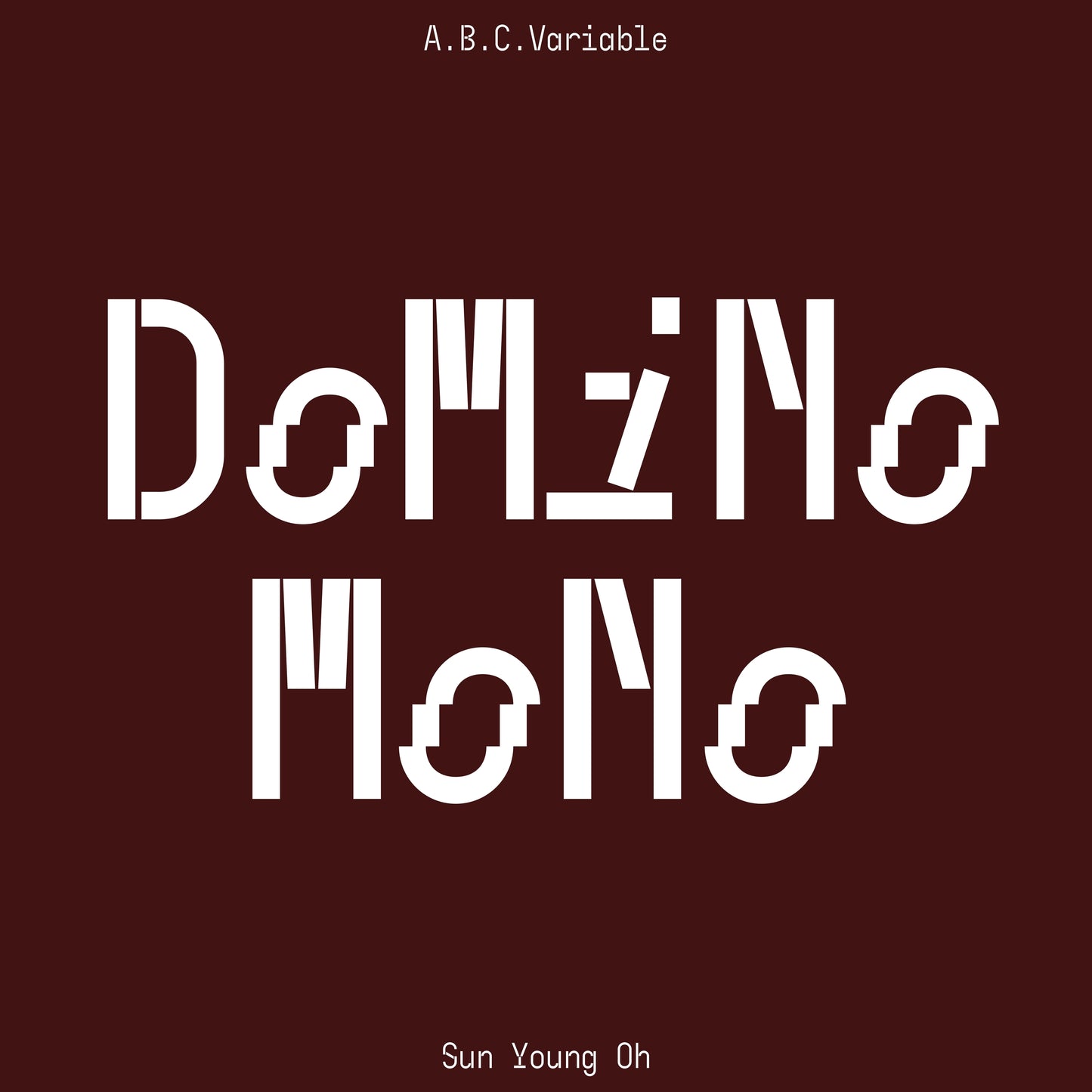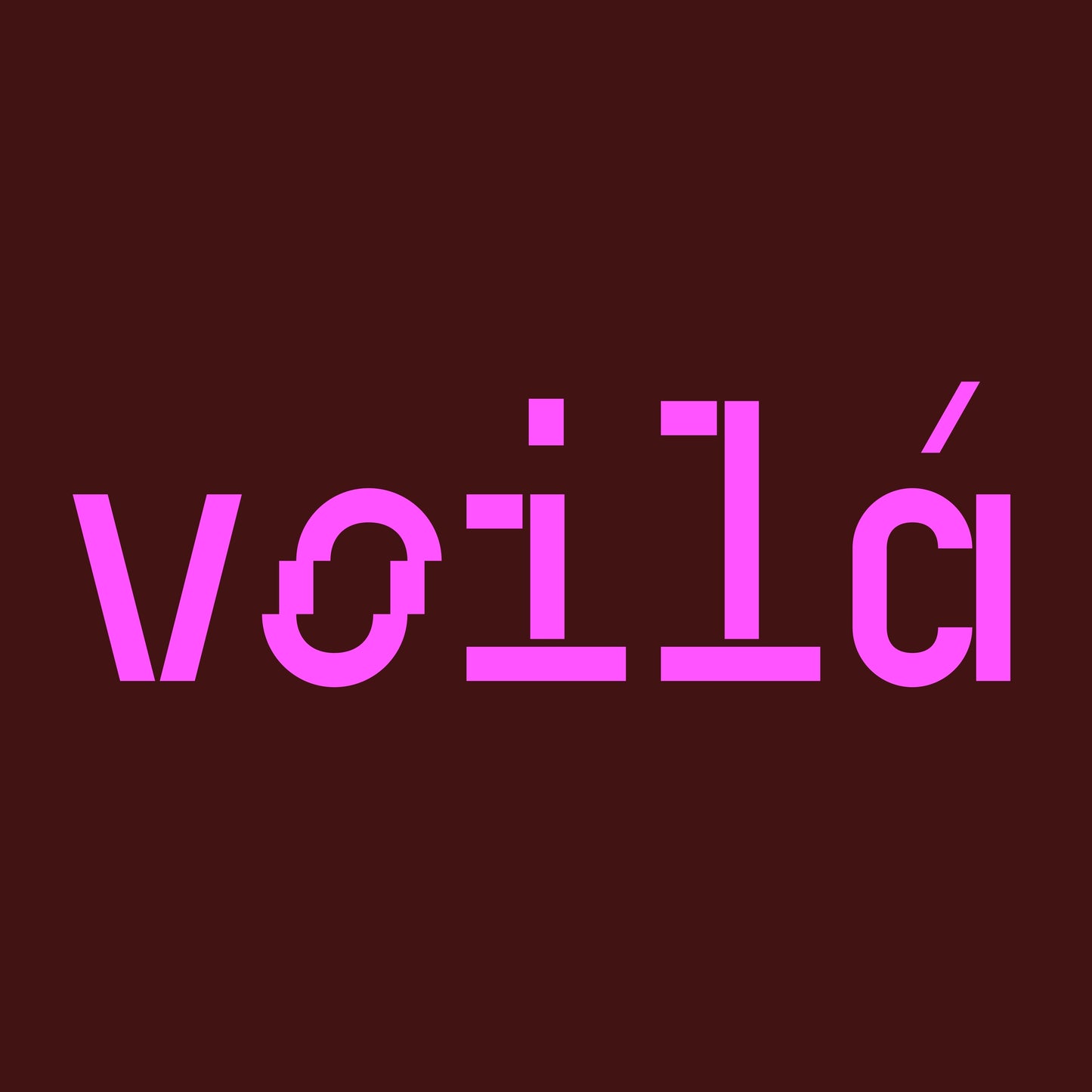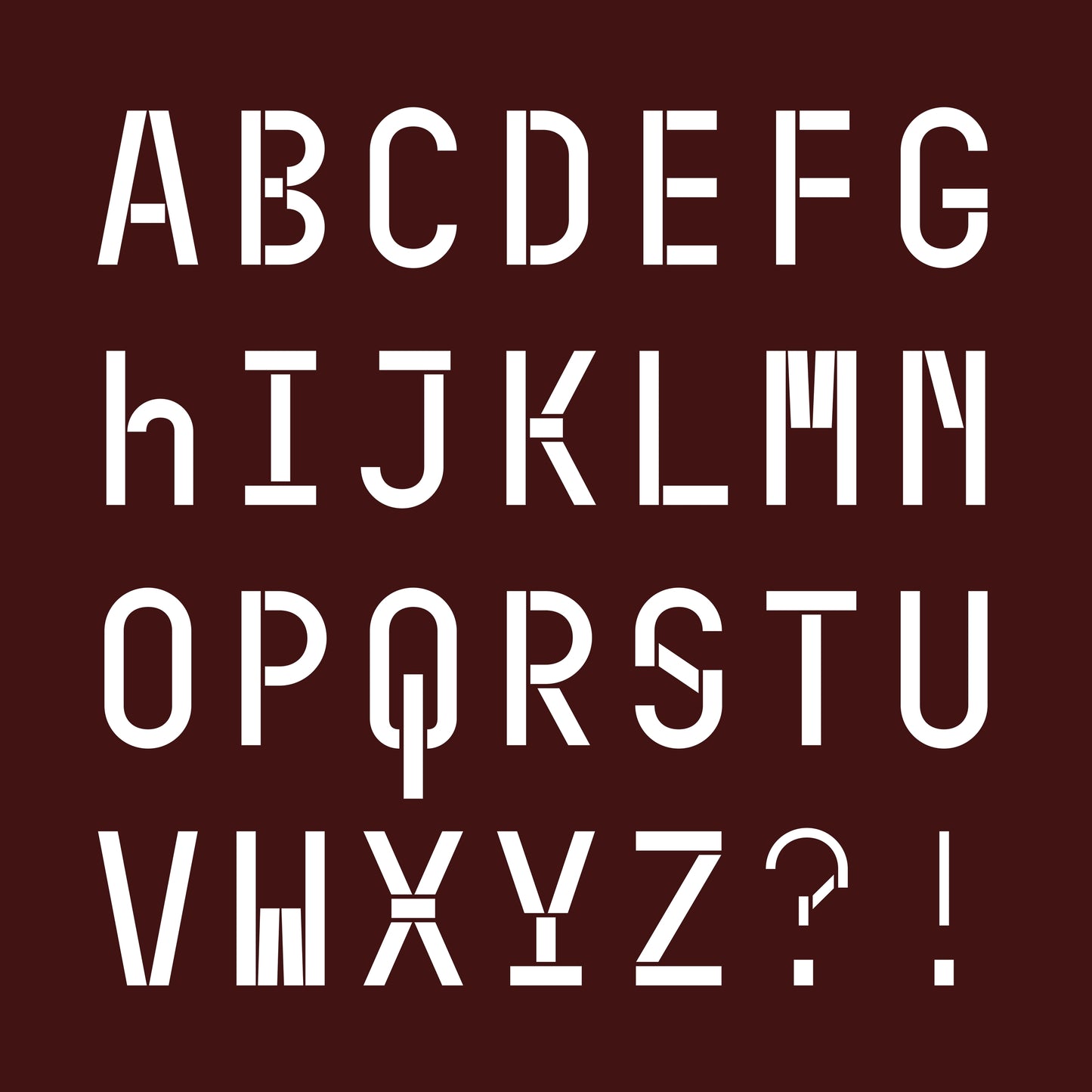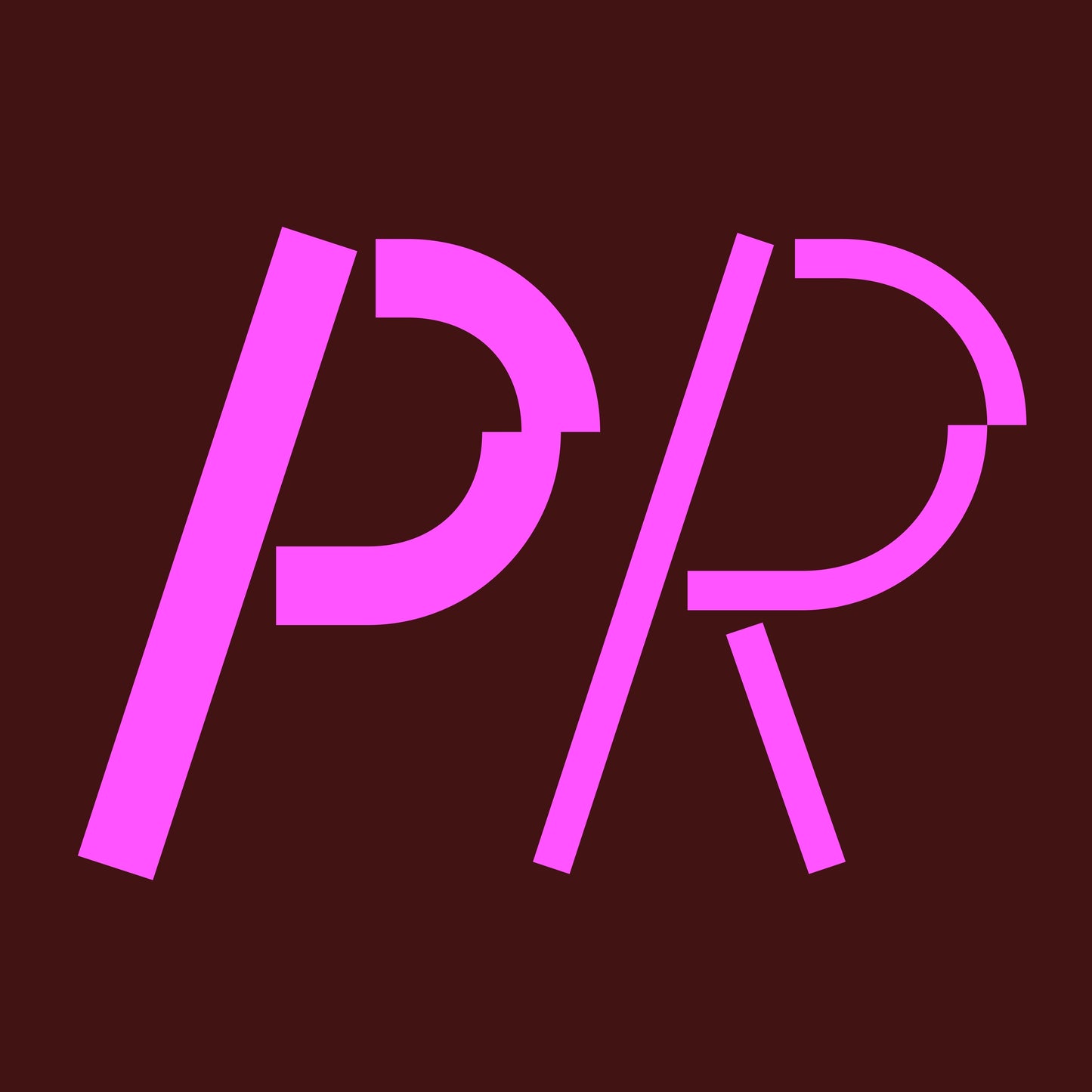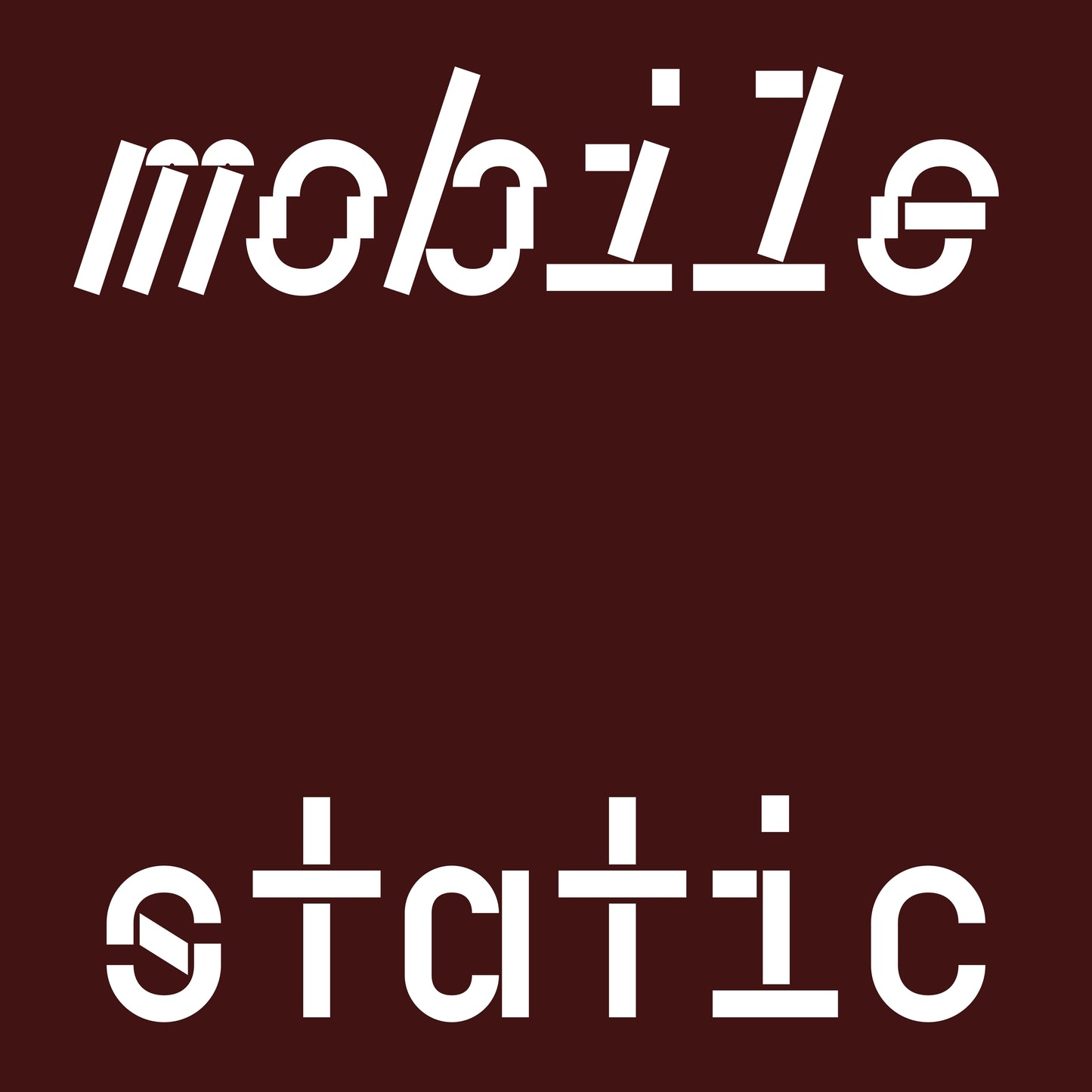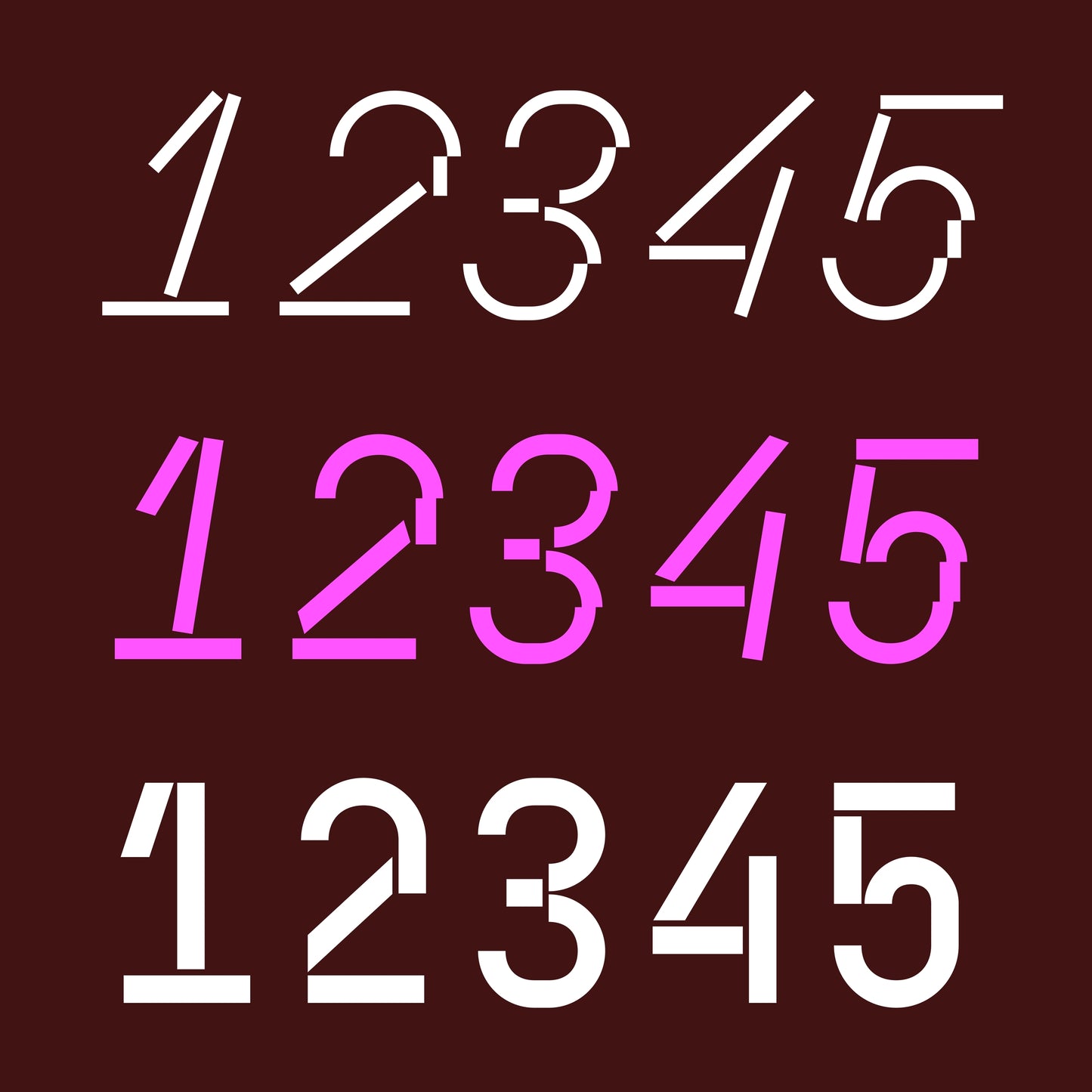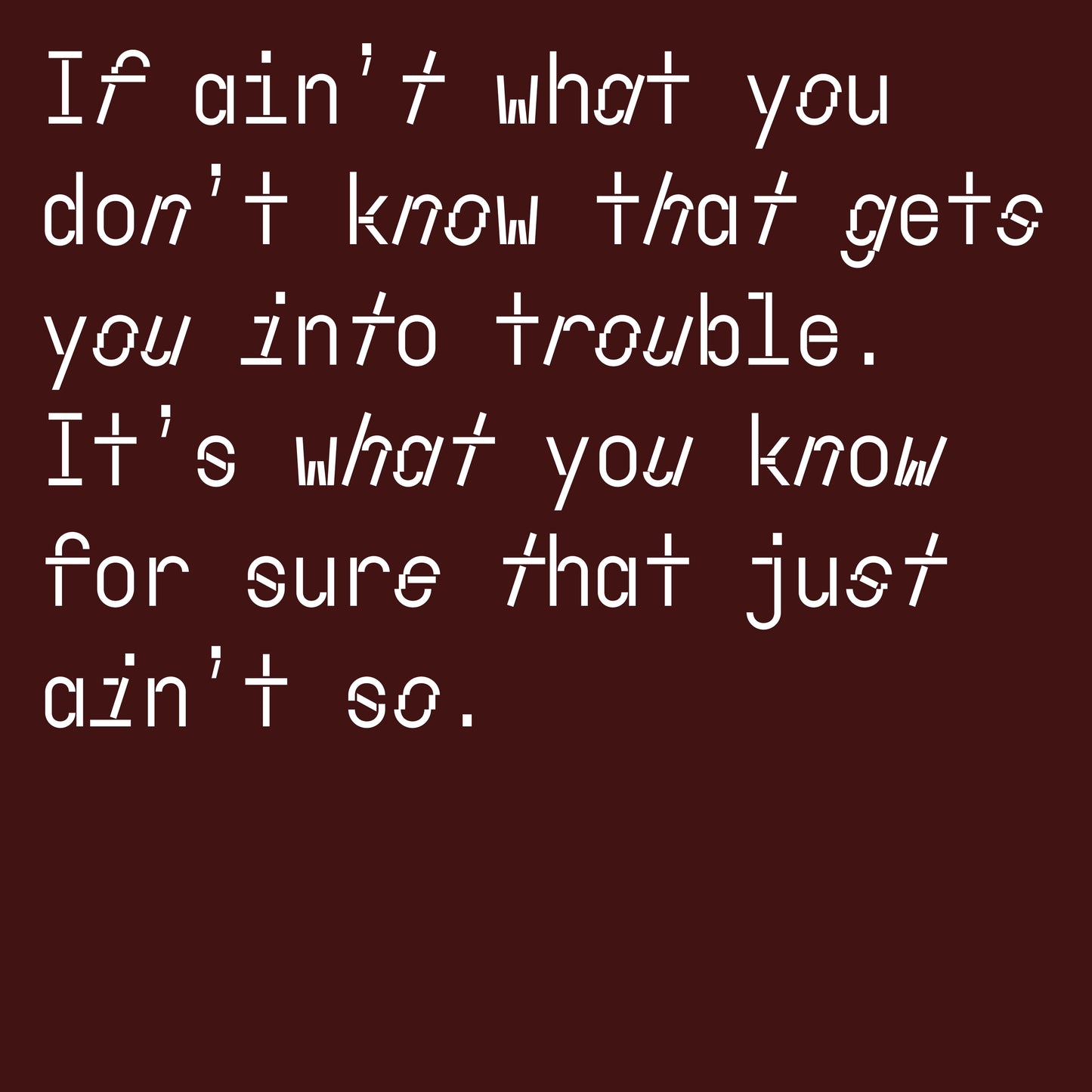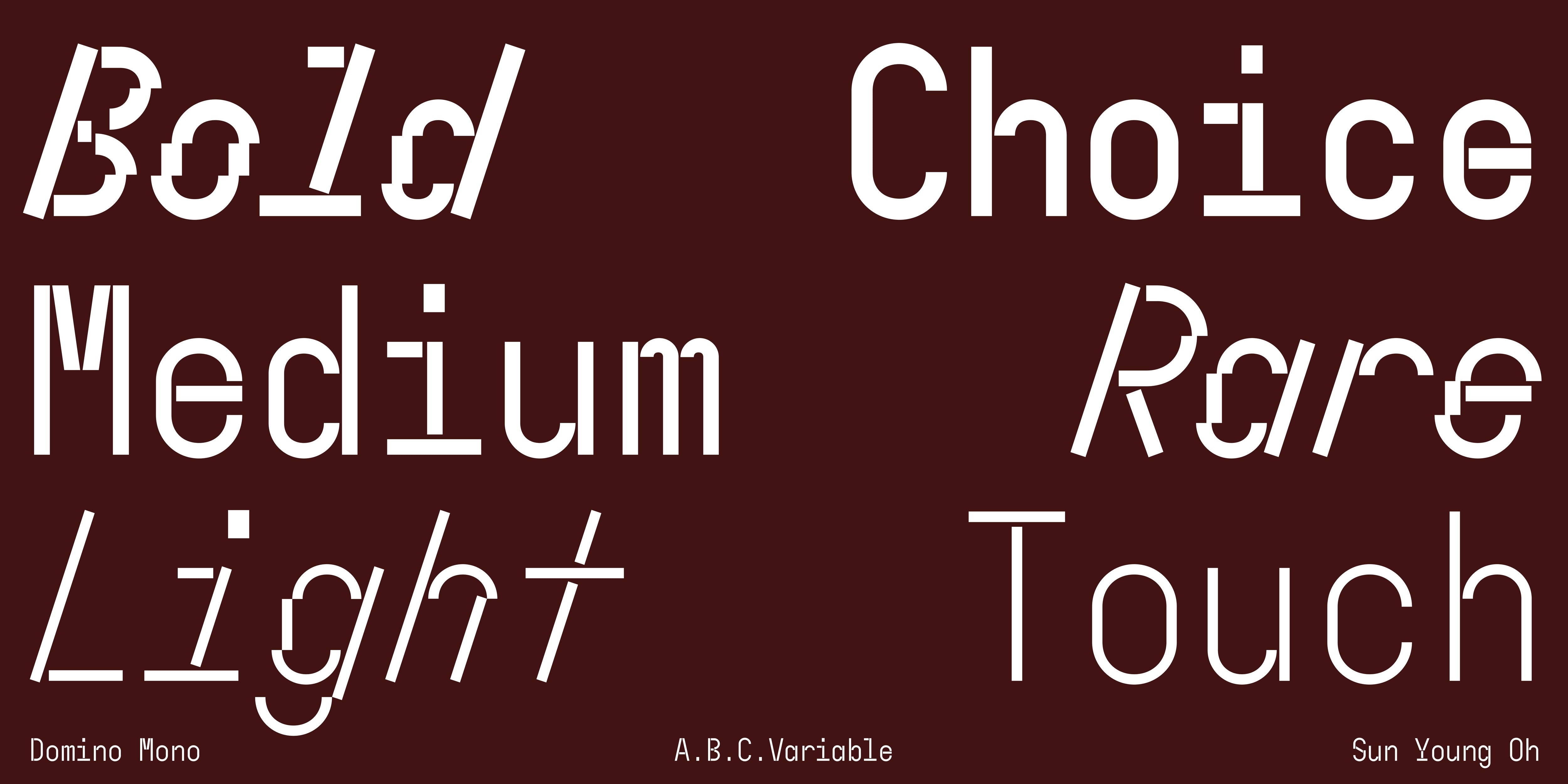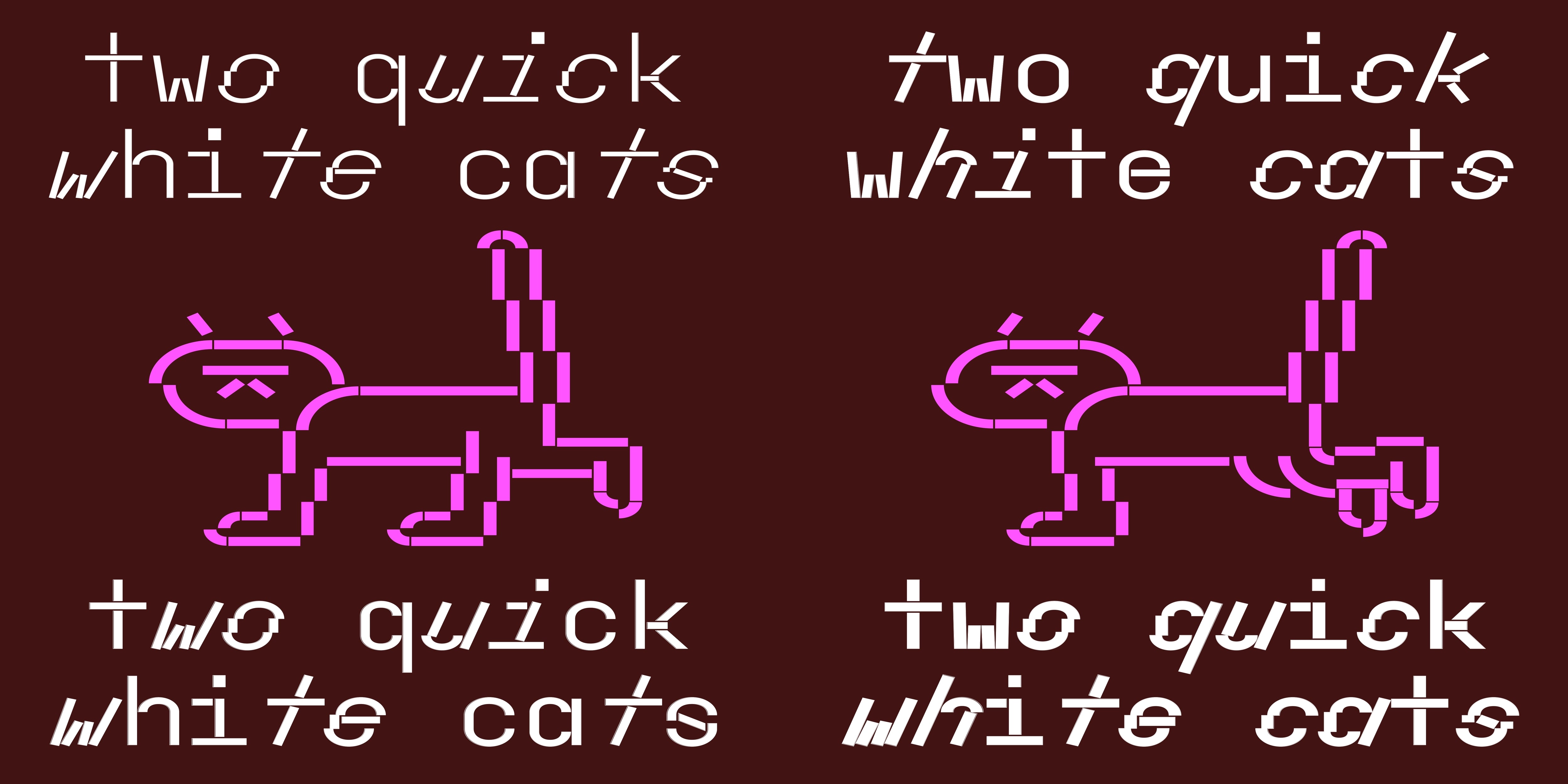
Domino Mono
Sun Young Oh
Domino Mono is an experimental monospaced variable typeface allowing its user to play with both the weight and angle axis to get the look they desire.
Inspired by the movement of toppling dominoes, the oblique letter shapes of Domino Mono are designed by tilting or dismantling the fragments of letters instead of shearing or reforming themselves, maintaining the same letter width throughout the entire font family thus bolder style has a dense and heavy impression. The variable weight is applied only to letters and numbers to retain the legibility of complex symbols as well as to give a rhythm in a long paragraph mixed with multiple punctuations and symbols.
- Total glyph set: 565
- Variable font support (Weight & angle)
- Uppercase & lowercase
- Numbers & numerators
- Diacritics
- Fractions, symbols, punctuation, mathematical symbols, arrows